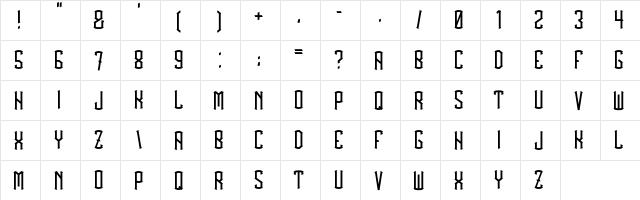
BlackDrops Font Preview
BlackDrops BlackDrops
BlackDrops Font Details
Design Context for BlackDrops Typeface
BlackDrops takes a measured approach to typography — its balanced proportions and neutral character make it a reliable workhorse for both digital and print work.